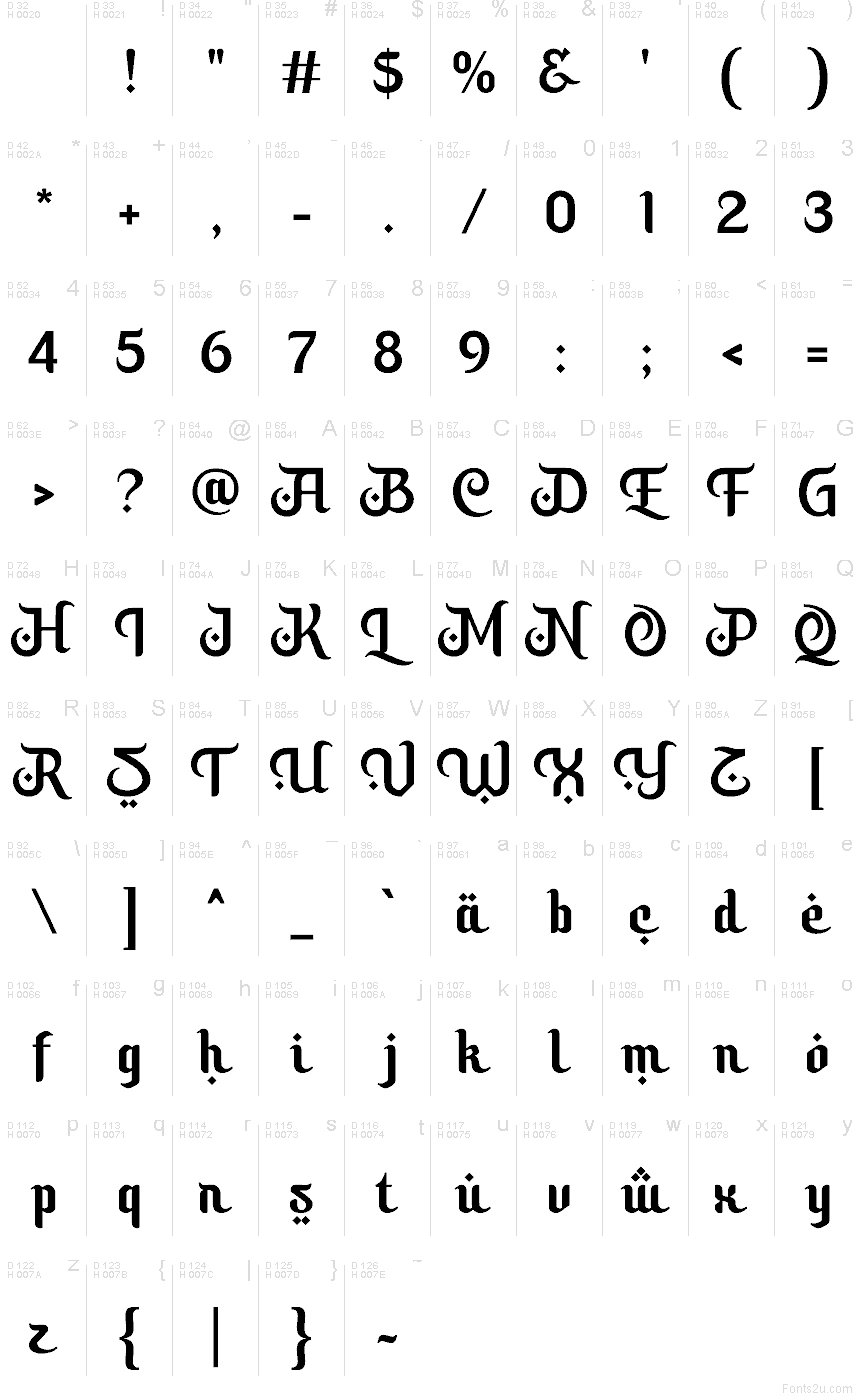
Sacred Ramadhan
Sacred Ramadhan font by Sronstudio is a free faux-Arabic decorative typeface that instantly sets a festive, spiritual mood. Its looping strokes, teardrop curves, and subtle calligraphic sway echo Middle Eastern signage while staying crisp and readable in Latin text. The bold, inky weight gives every word a ceremonial presence, like a hand-painted banner lit by lanterns at dusk.
Using Sacred Ramadhan, your headlines and titles gain an immediate Ramadan or Islamic holiday atmosphere without extra ornament. This free font works beautifully for event posters, iftar invitations, social media promos, packaging for sweets, YouTube thumbnails, and themed branding. Let it carry the main heading, then pair it with a clean sans serif in smaller sizes to keep longer text clear and grounded.